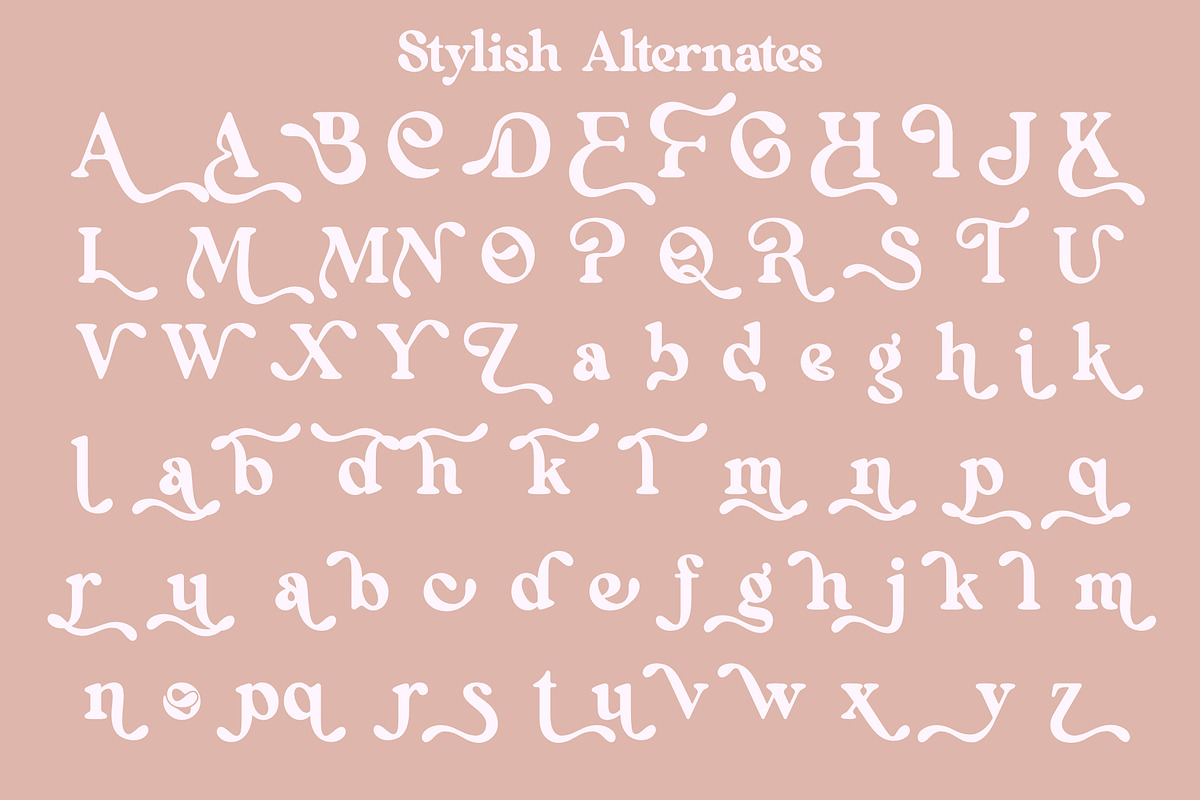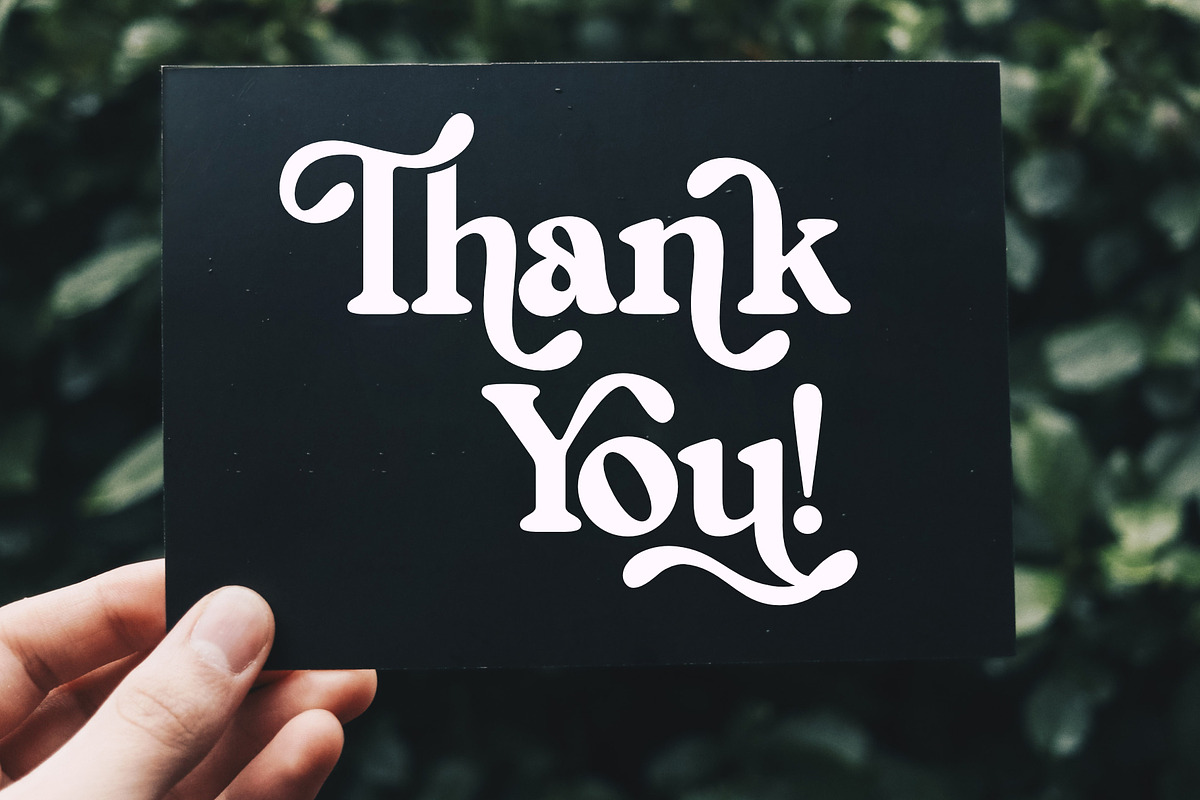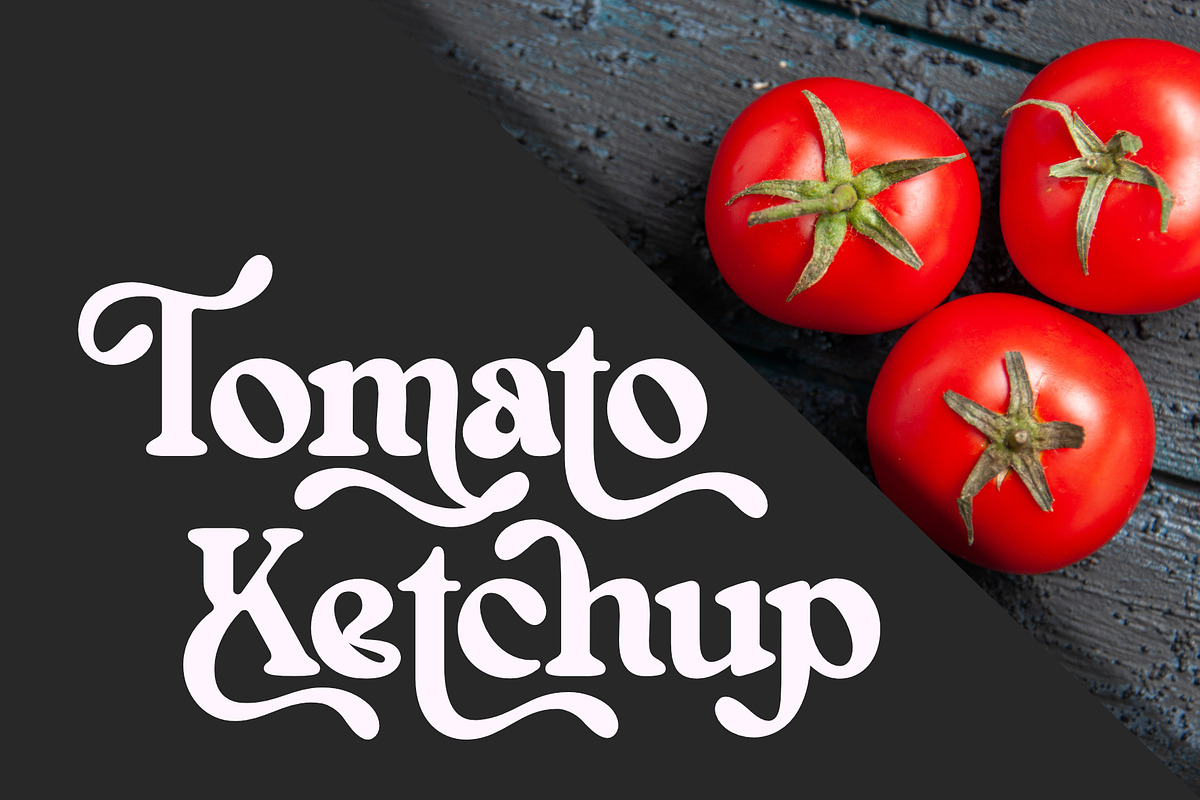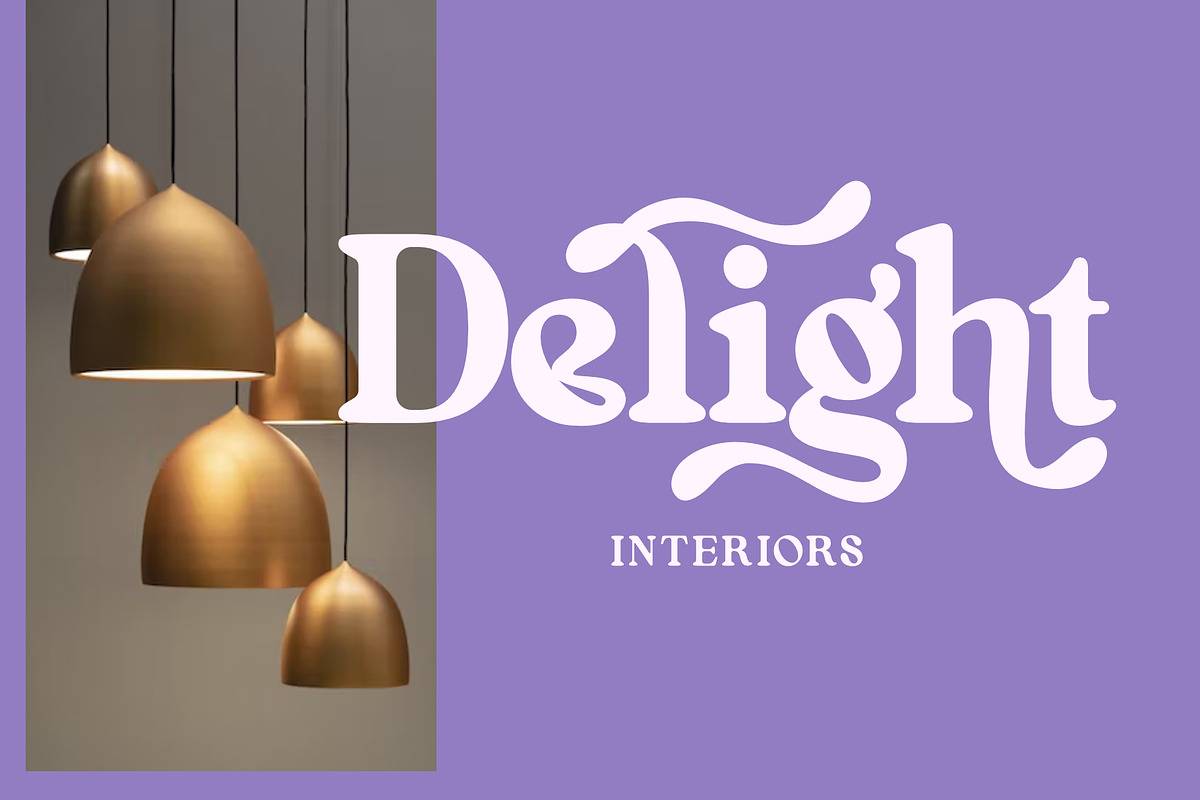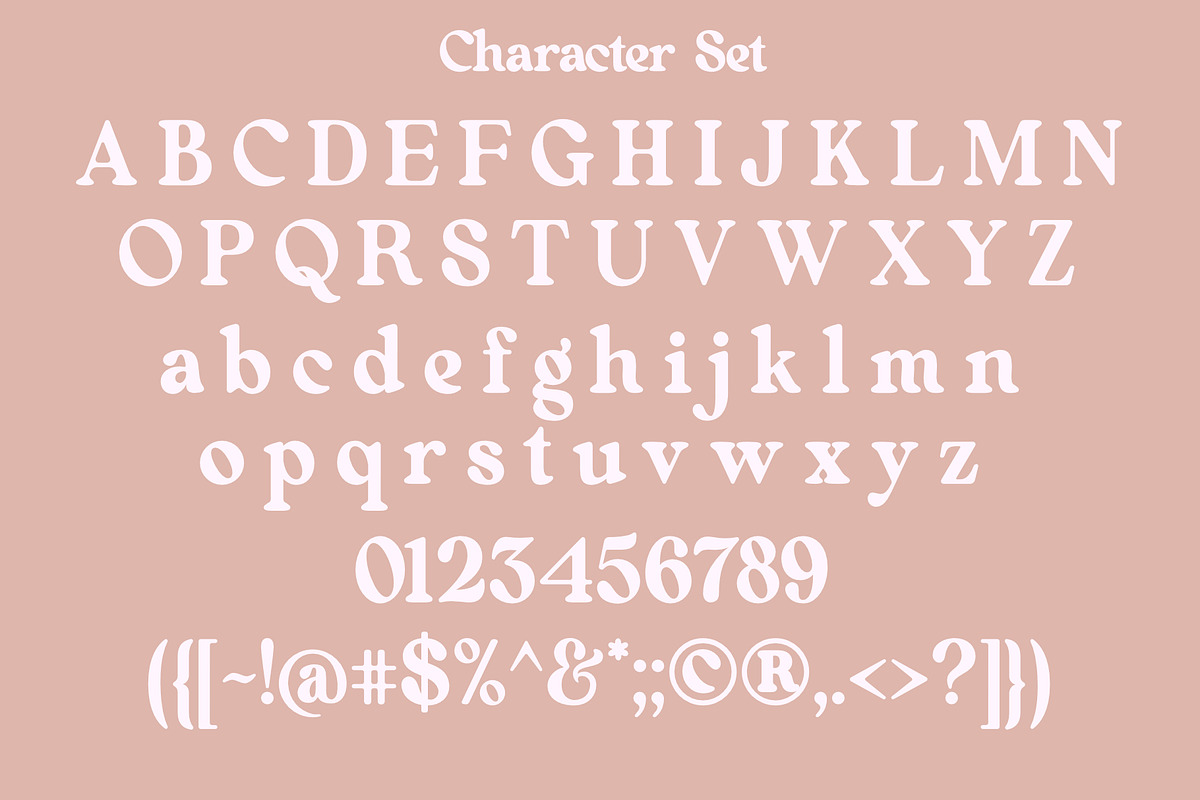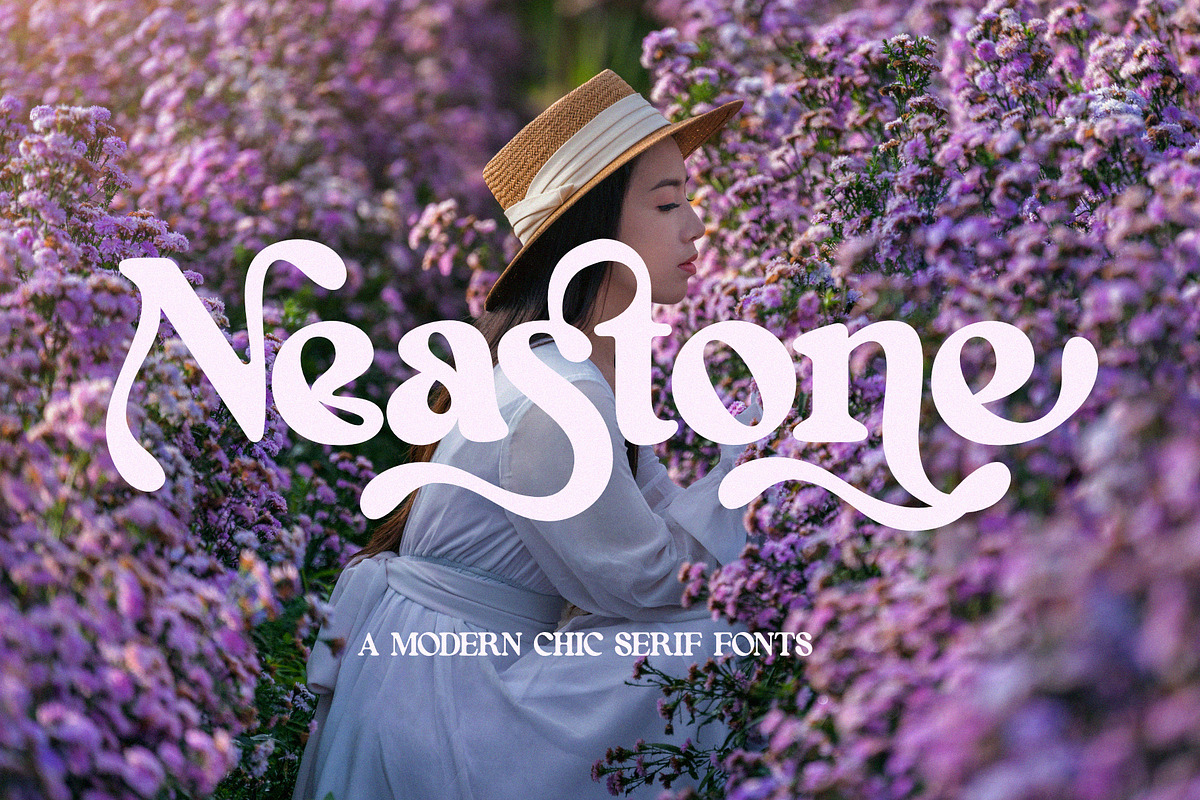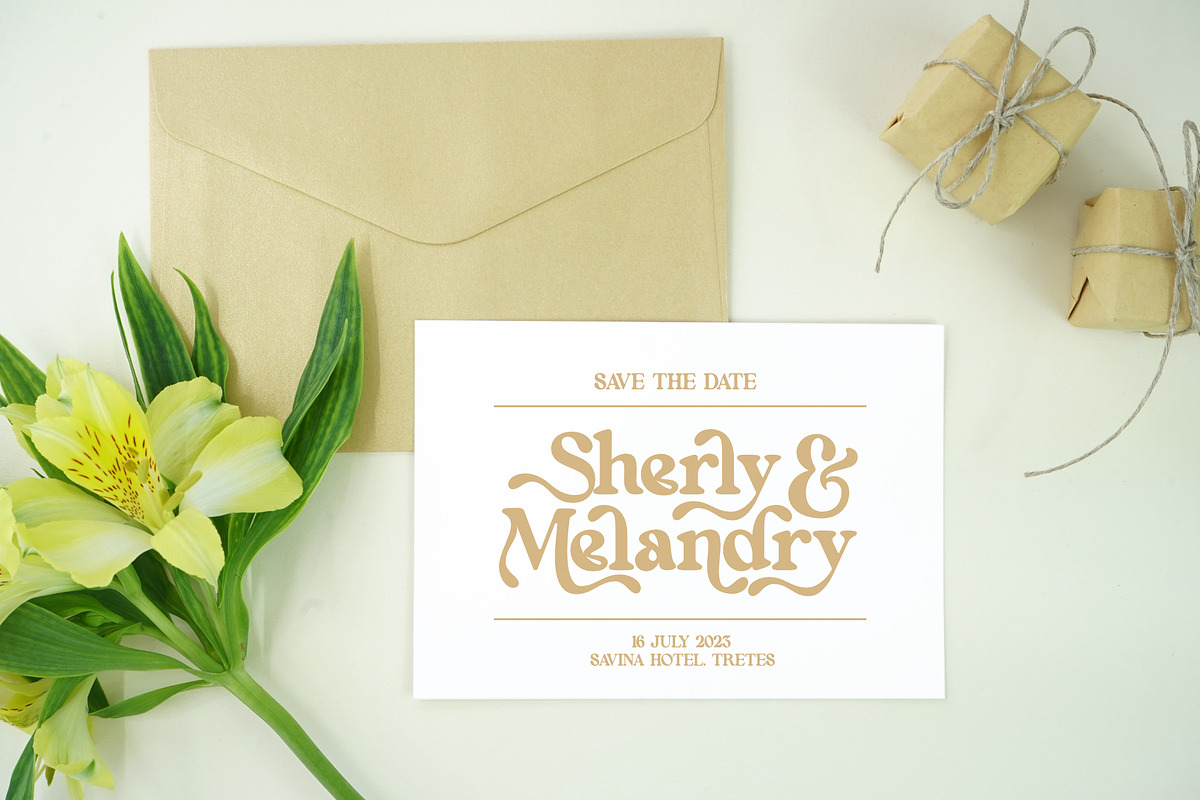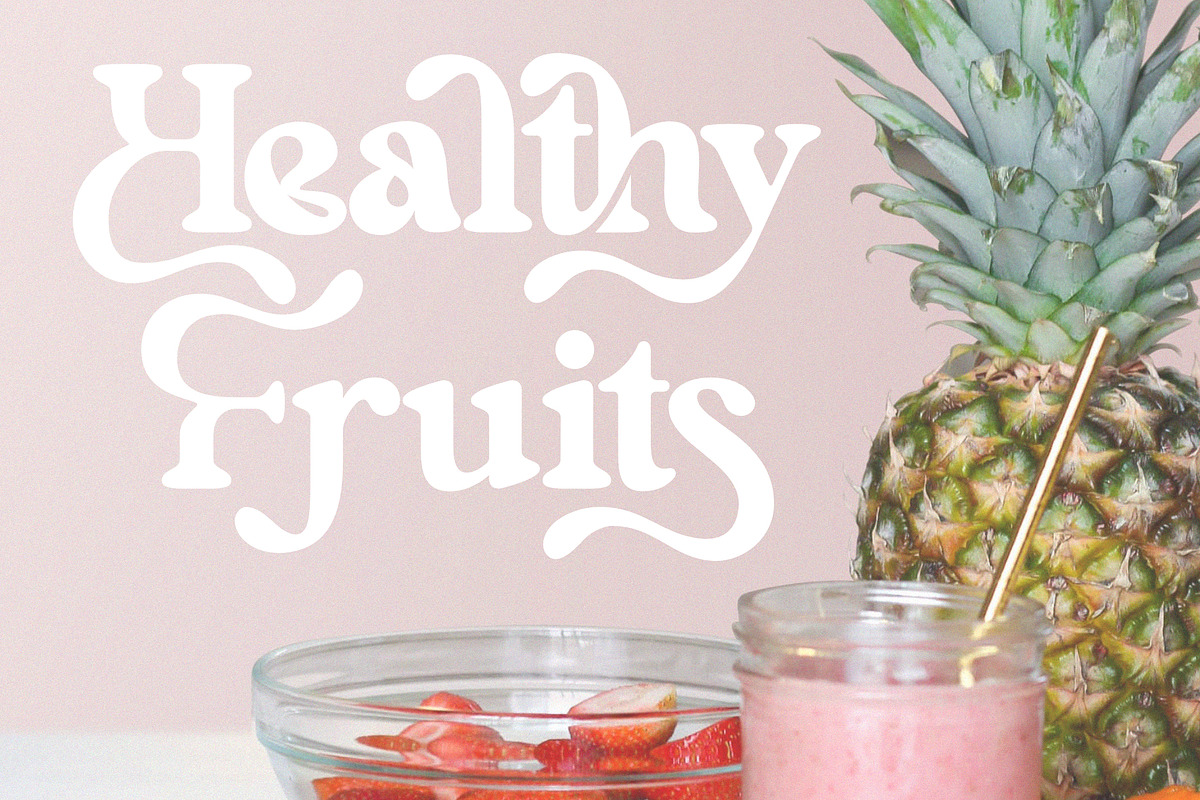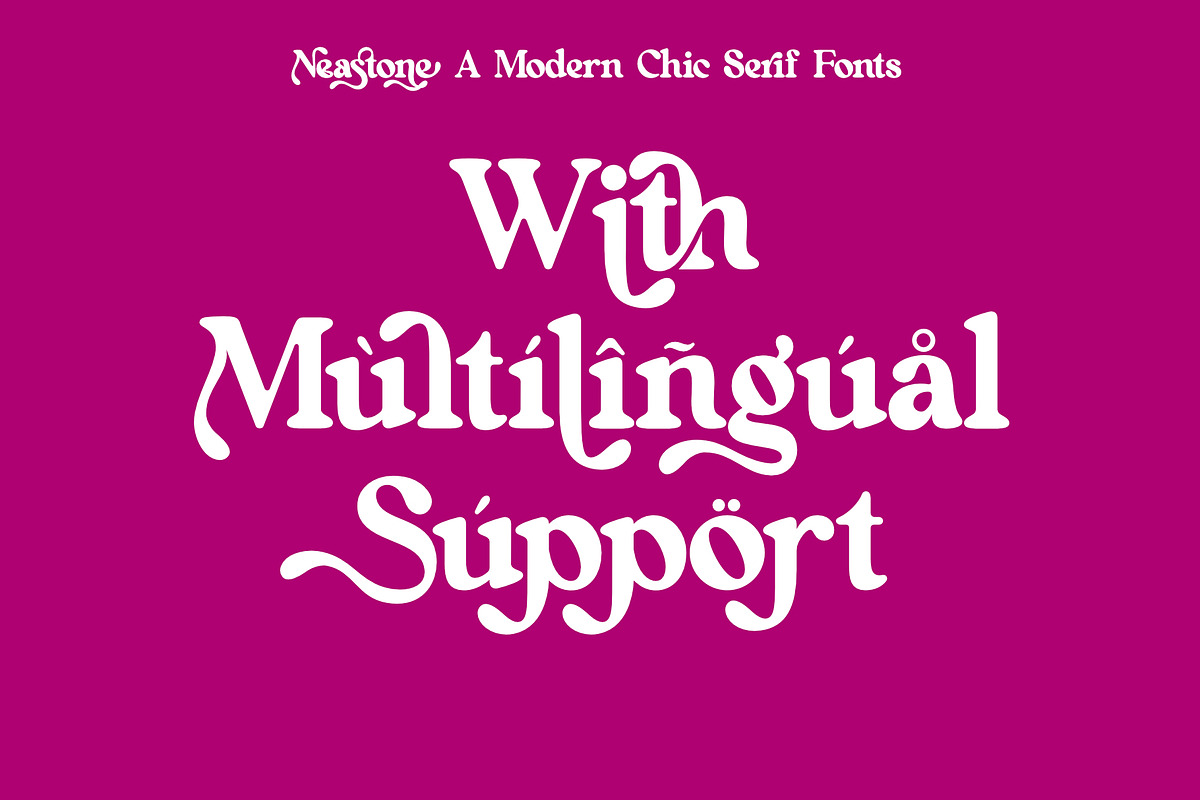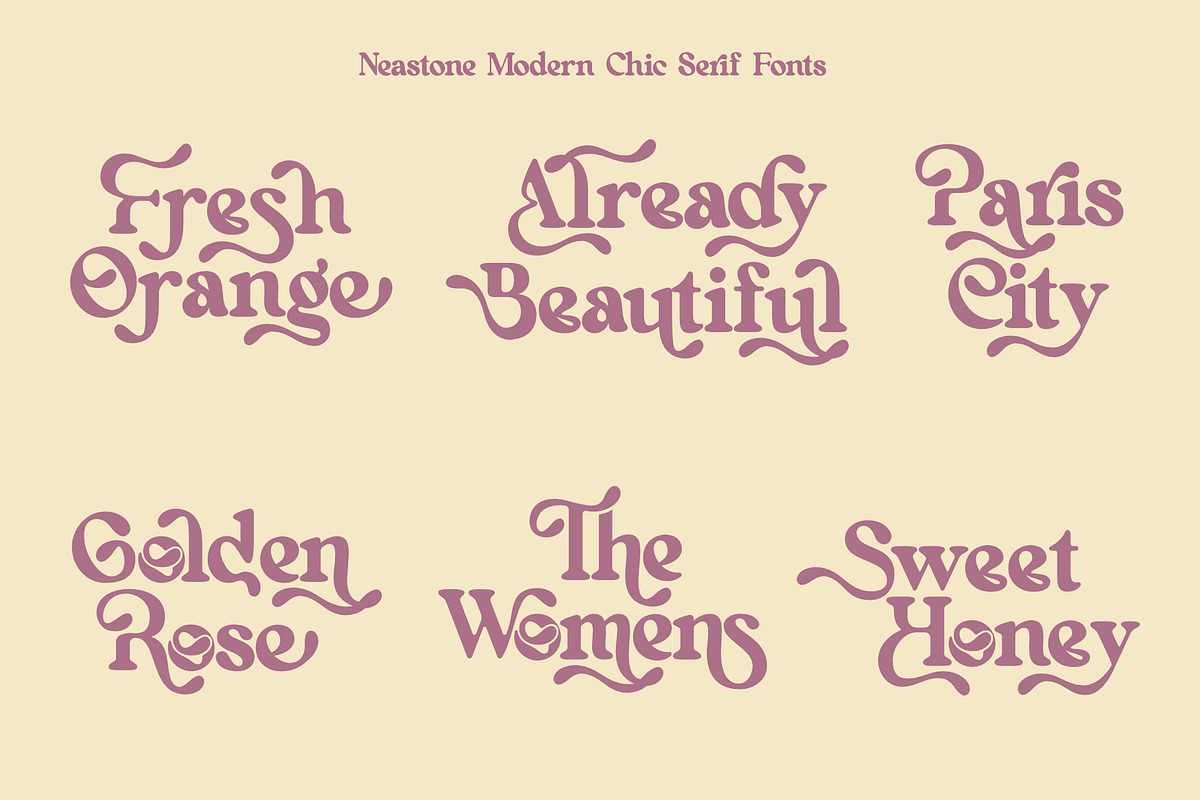
Neastone
Introducing Neastone A Modern Chic Serif Fonts.
Beautiful and soft fonts in a contemporary style that can make your design projects look modern, elegant and luxurious. Made with many alternative characters to make it easier for you to do various design projects and give you fun while typing.
Neastone fits perfectly into those nostalgic moodboards and vintage logos. It come with a unique lower and uppercase plus numbers, punctuation & multilingual letters.